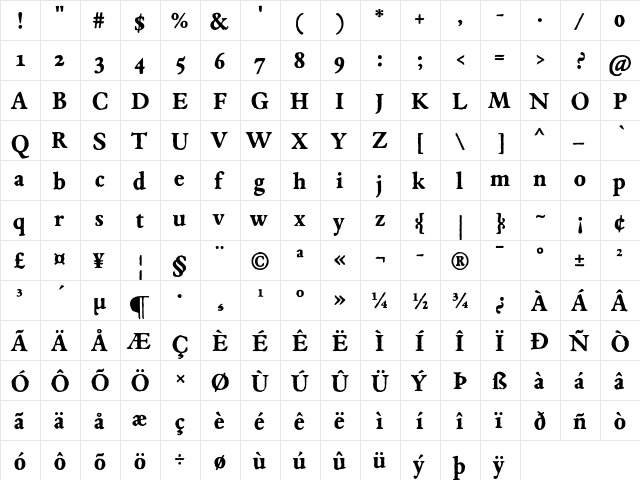
JMH Espinosa Bold Font Preview
JMH Espinosa Bold
JMH Espinosa Bold Font Details
Design Context for JMH Espinosa Typeface
JMH Espinosa is a composed and adaptable typeface that performs quietly and consistently across a wide range of design contexts. The heavy weight commands attention and anchors typographic hierarchies.